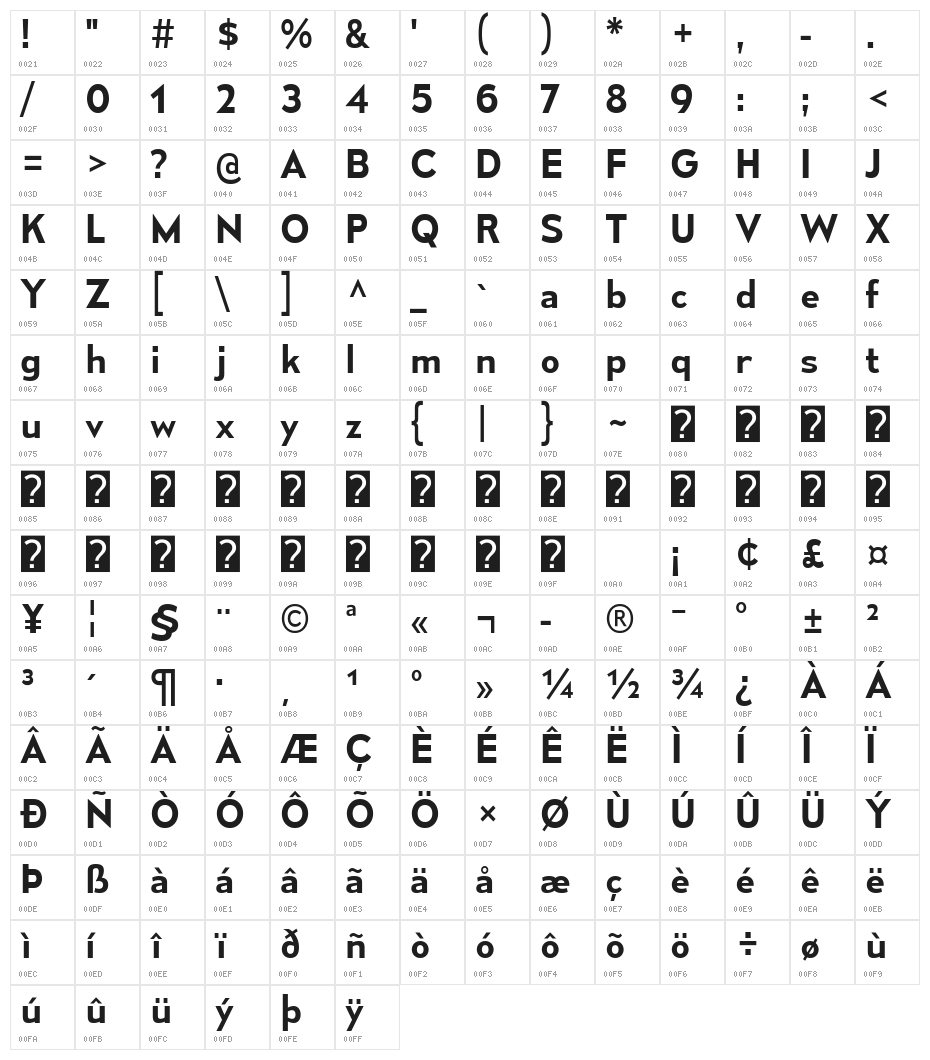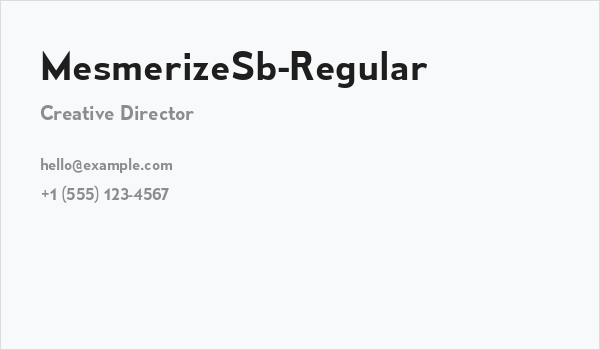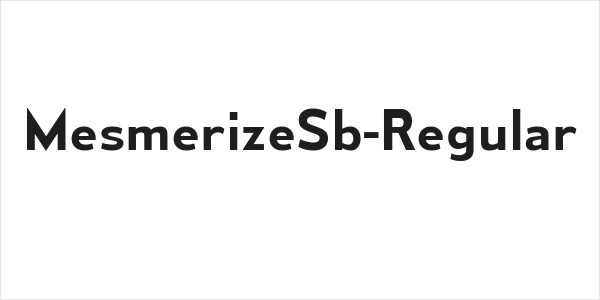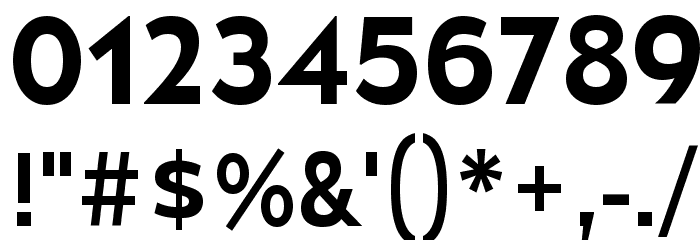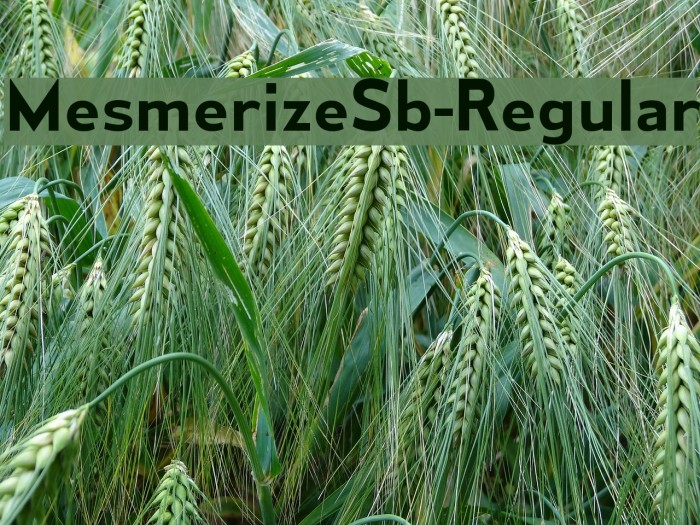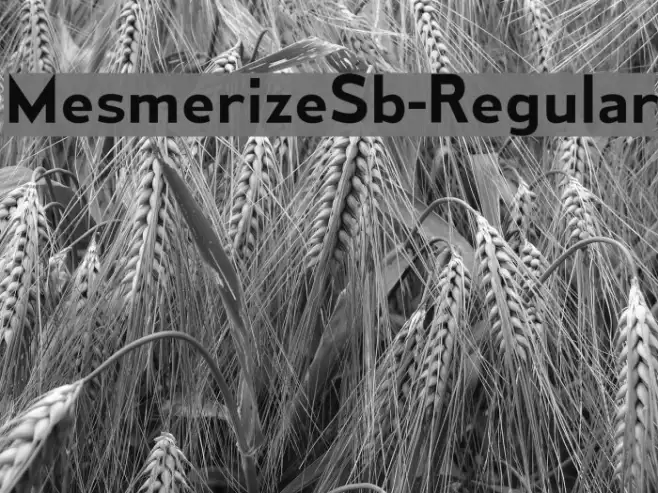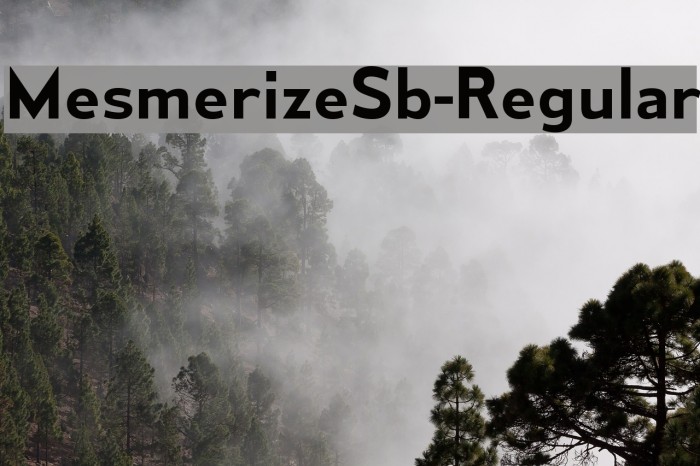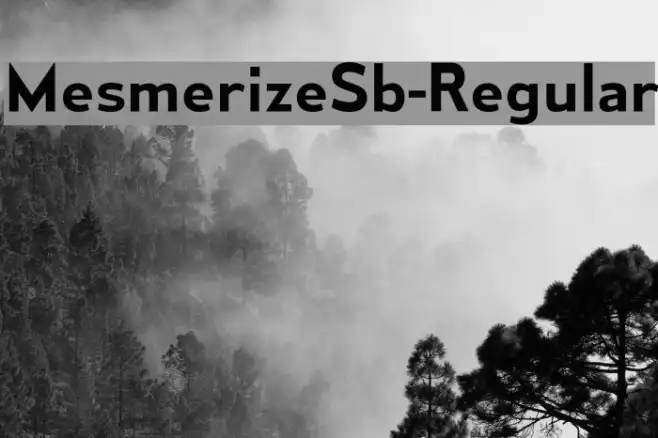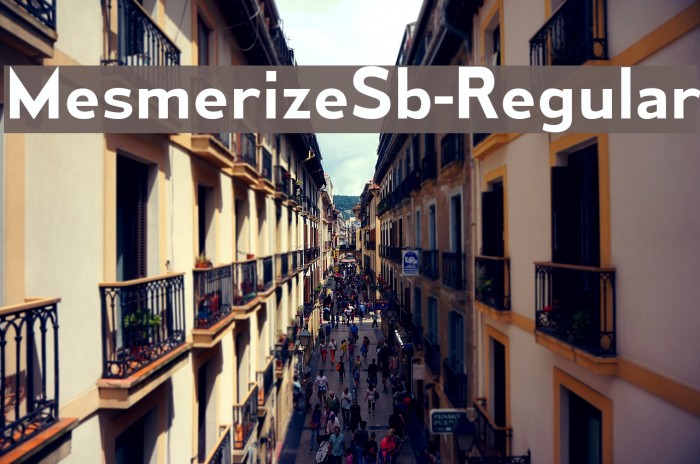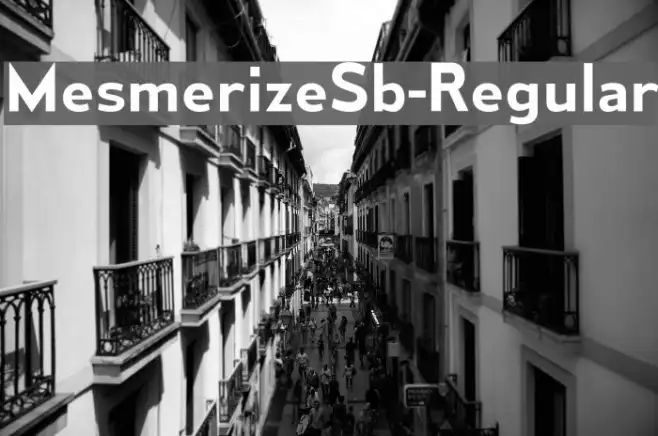
MesmerizeSb-Regular Font
✎ Sans Serif
MesmerizeSb-Regular Description
This font features a clean and modern sans-serif design with a geometric structure. The uppercase letters are bold and assertive, while the lowercase letters maintain a consistent and balanced appearance. The numerals are clear and easy to read, making them suitable for various applications. The special characters are well-defined, adding versatility to the font. Overall, the font's simplicity and clarity make it ideal for contemporary design projects.
| Use Case | Headlines, Logos, Web design |
| Proposed Projects | Ideal for branding, advertising, web design, and editorial layouts. |